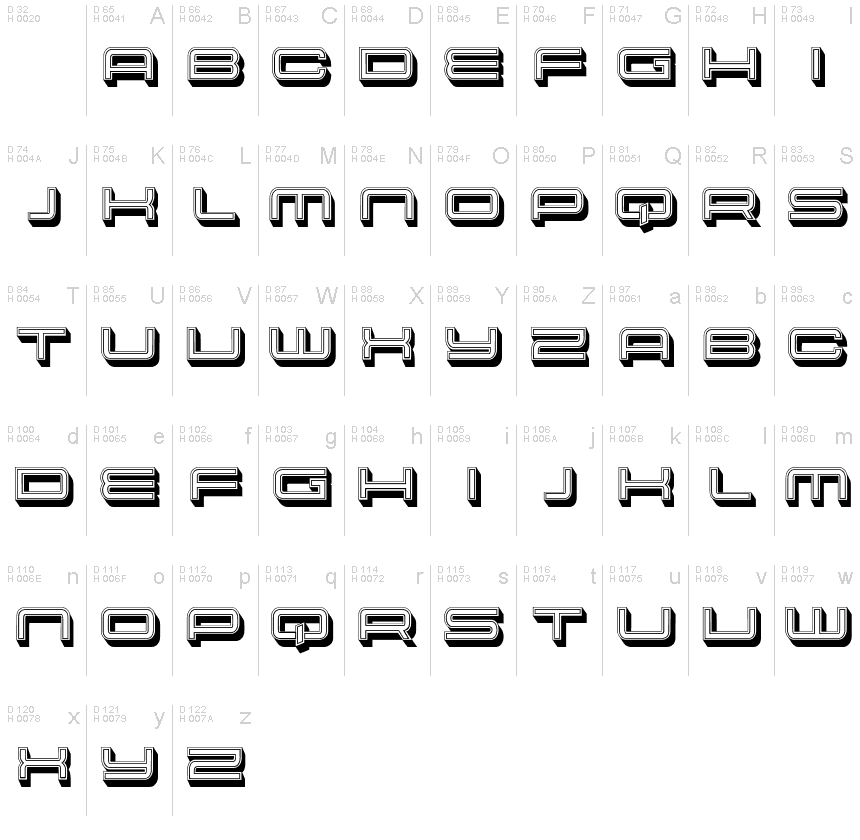
Celebrities Regular
Celebrities, a striking creation by Vladimir Nikolic, stands out in the realm of display fonts with its pronounced 3D effect and futuristic flair. The extra-expanded width of each character boldly occupies space, commanding attention and making a statement that's impossible to overlook. This font boasts an aesthetic that seems to leap off the page or screen, giving depth and dimension to words in a way that is both innovative and visually captivating.
The sleek contours and reflective surfaces of Celebrities evoke the essence of modernity and high-tech elegance. Its style could be perfectly suited for branding projects, event titles, or any design work where a touch of glamour and sophistication is desired. Whether applied to movie posters or cutting-edge advertising campaigns, Celebrities has the potential to elevate creative projects with its unique blend of contemporary style and impactful presence.